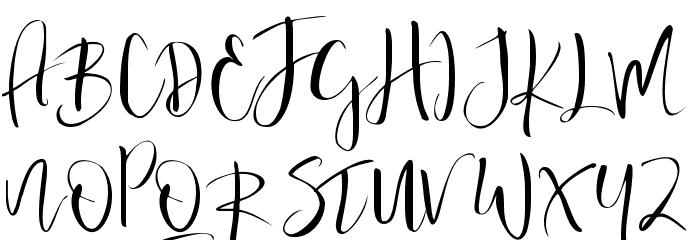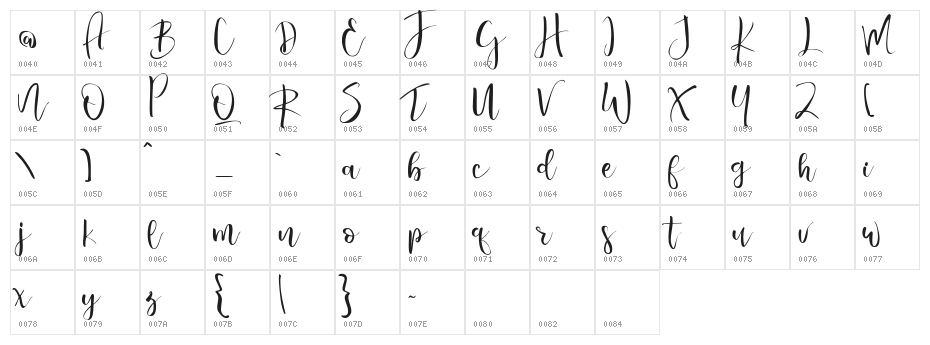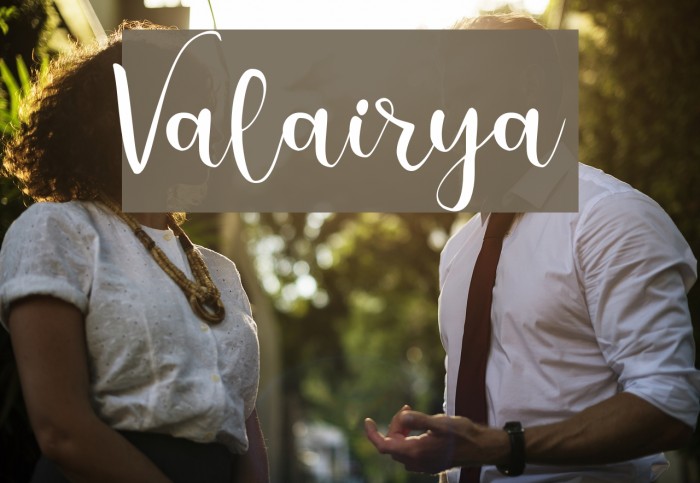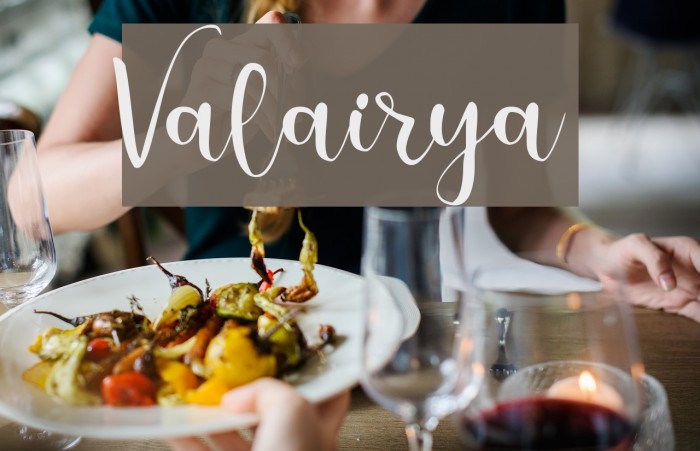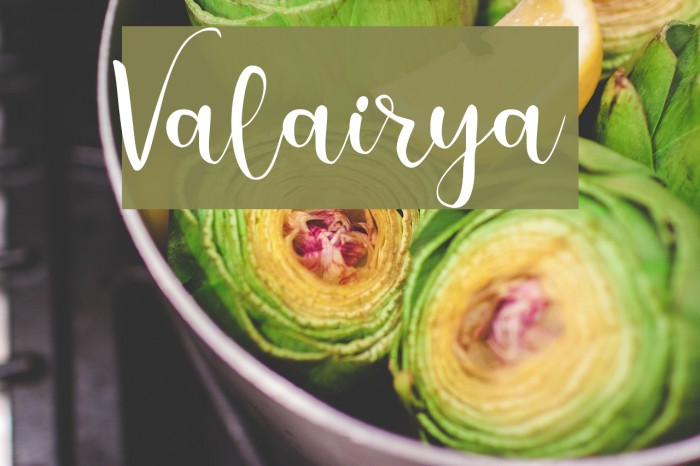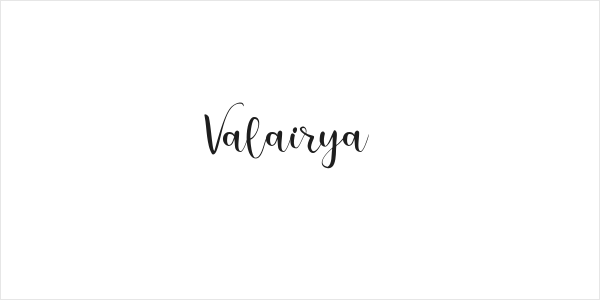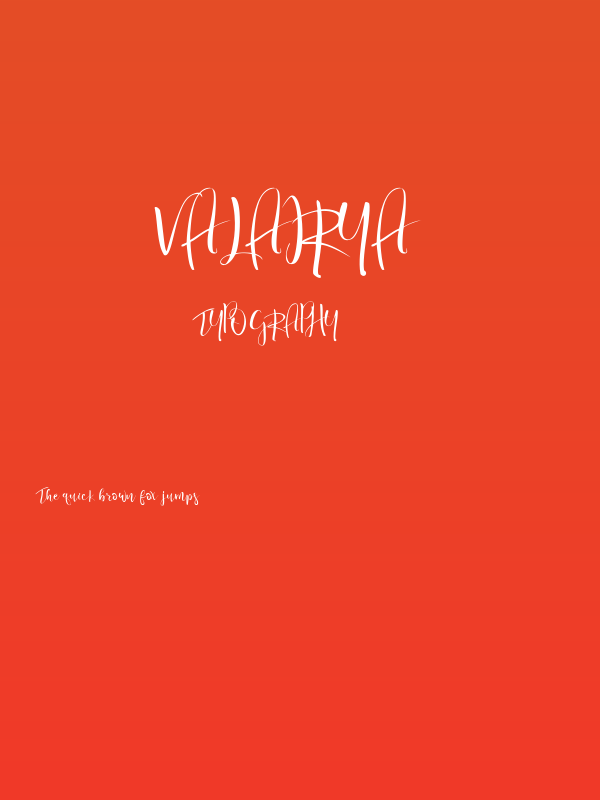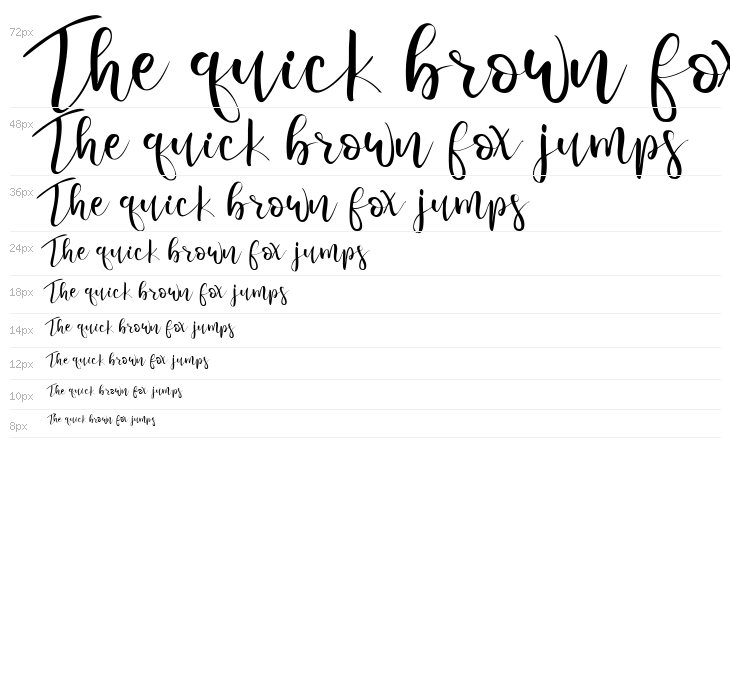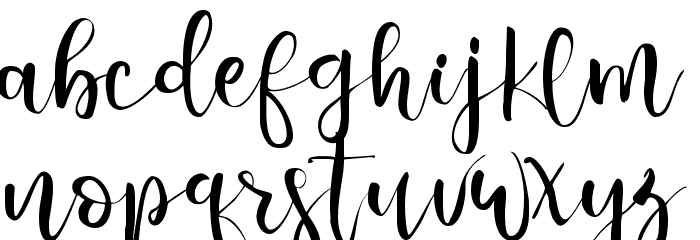
Valairya- Font
Valairya- Description
This font exudes a lively and expressive style, characterized by its flowing, cursive script. The letters are elegantly connected, with each character exhibiting a playful yet sophisticated flair. The strokes vary in thickness, adding a dynamic contrast that enhances readability while maintaining an artistic touch. The uppercase letters are bold and prominent, while the lowercase letters are slightly more delicate, creating a harmonious balance. This font is perfect for projects that require a personal, handwritten feel, such as invitations, greeting cards, and branding materials.
| Proposed Projects | Ideal for invitations, greeting cards, branding, and personal projects. |